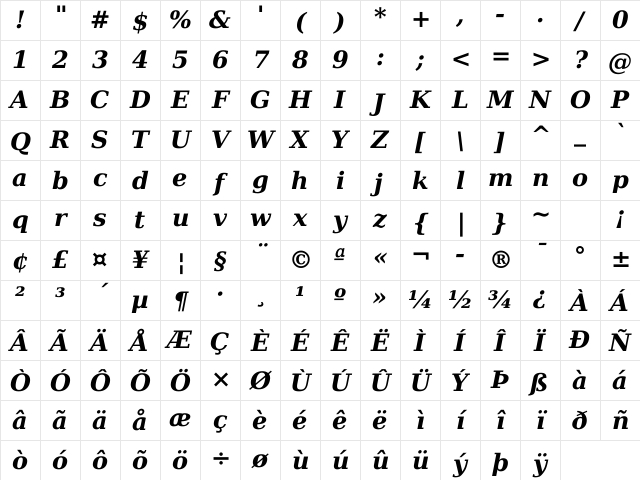
Complete DejaVu Serif Bold Italic glyph index. Displaying only characters natively supported by DejaVu Serif Bold Italic font.
DejaVu Serif carries the refined structure of traditional serif typography, with bracketed terminals and considered proportions that communicate credibility and craft. The slanted form adds forward momentum and visual energy. Its bold stroke weight gives it real presence on the page.
Pro Tip: Use DejaVu Serif for editorial body copy and considered headline work. Pair with a neutral sans for UI elements or captions to create a classic hierarchy.